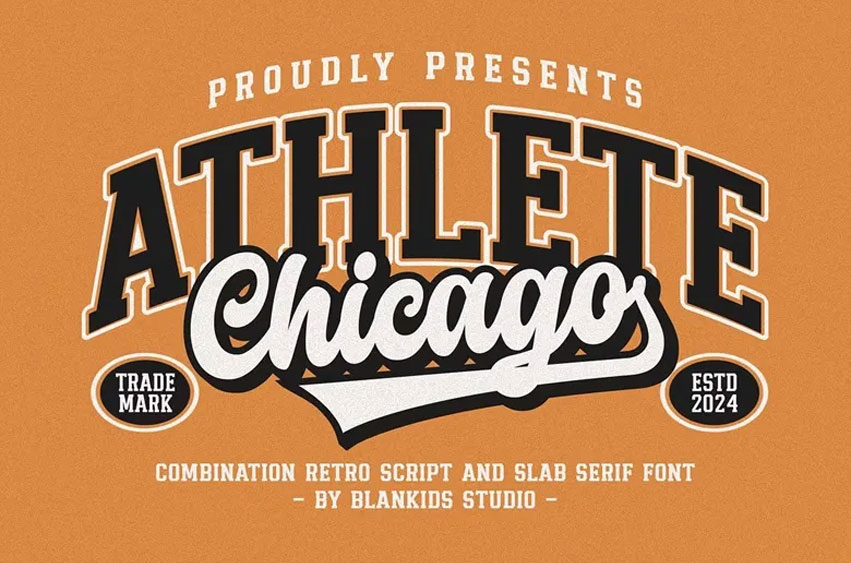
Chicago Athletic Font
Chicago Athletic Font is a retro sporty display font combination is suitable for any professional project branding and can be used in logotype, watermarks, posters, branding, promotions, product packaging, etc.. Each letter has an element of retro sporty and varsity style on it. This font has four font combination. Chicago Athlete font contains a complete set of retro sporty uppercase and lowercase letters, figures and punctuation marks.
Chicago Athletic Font Preview